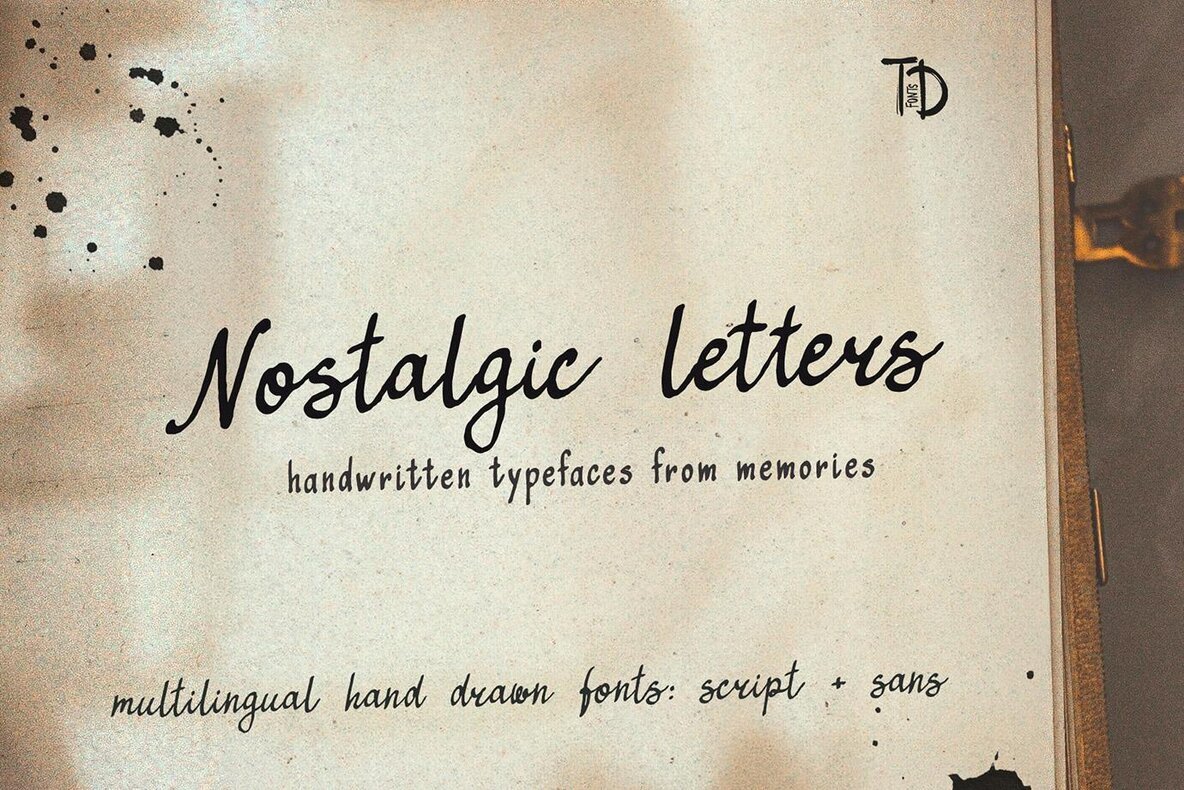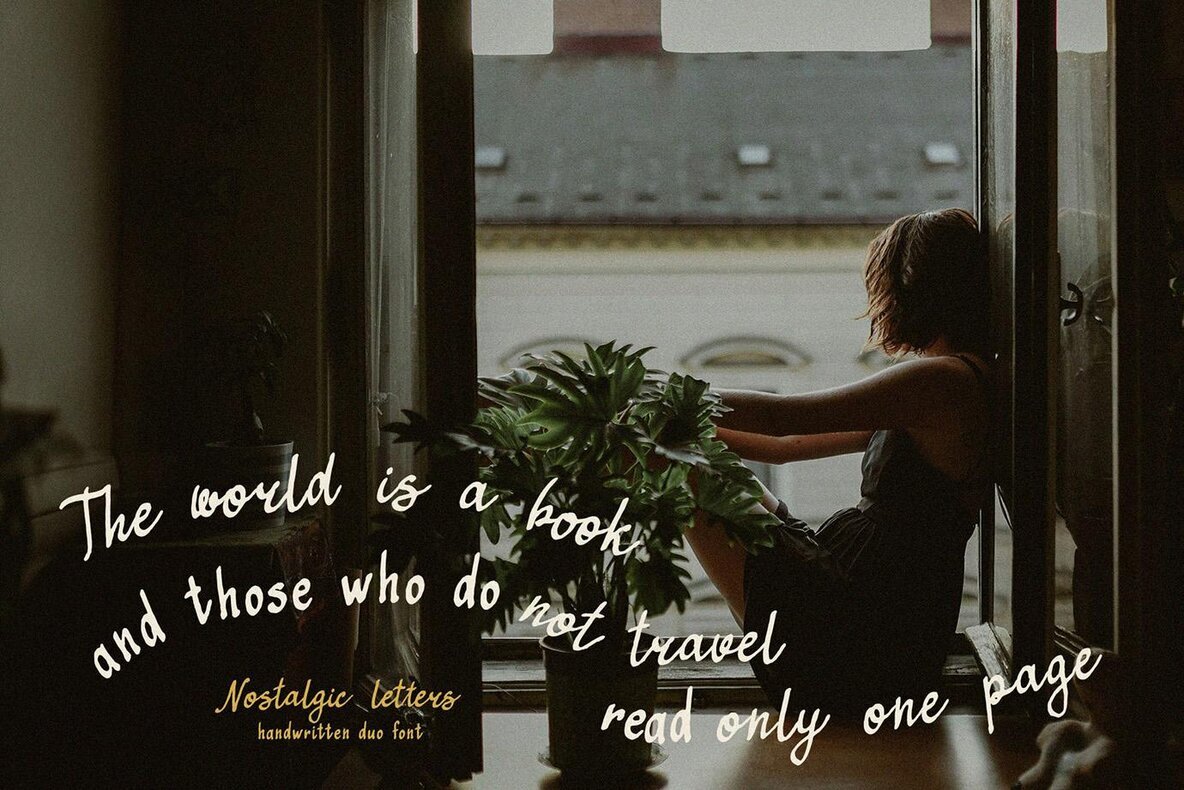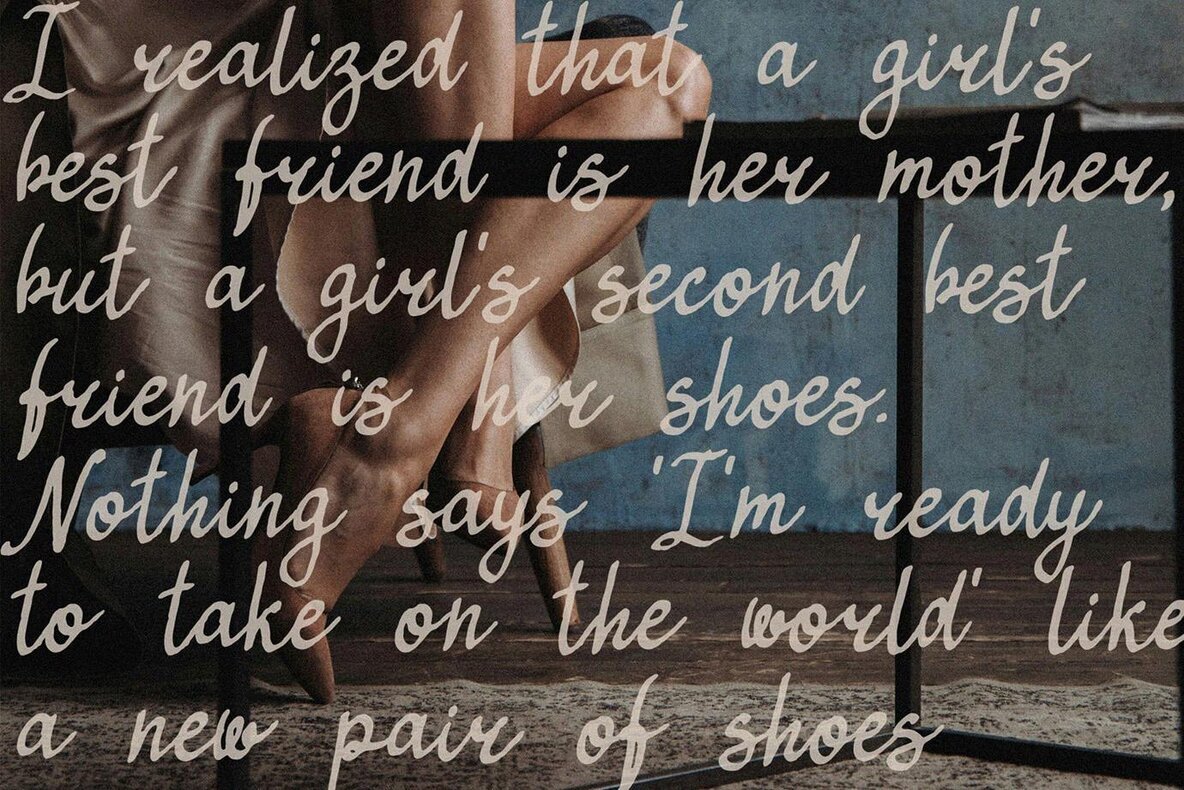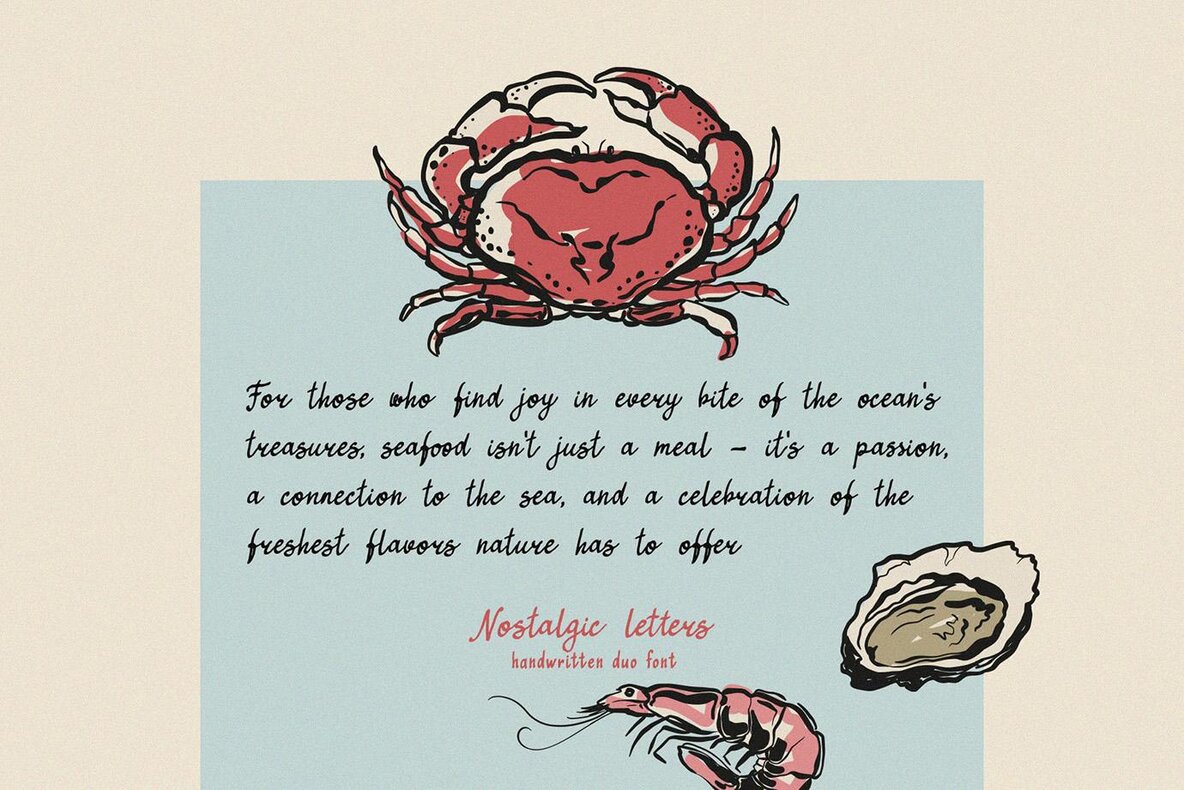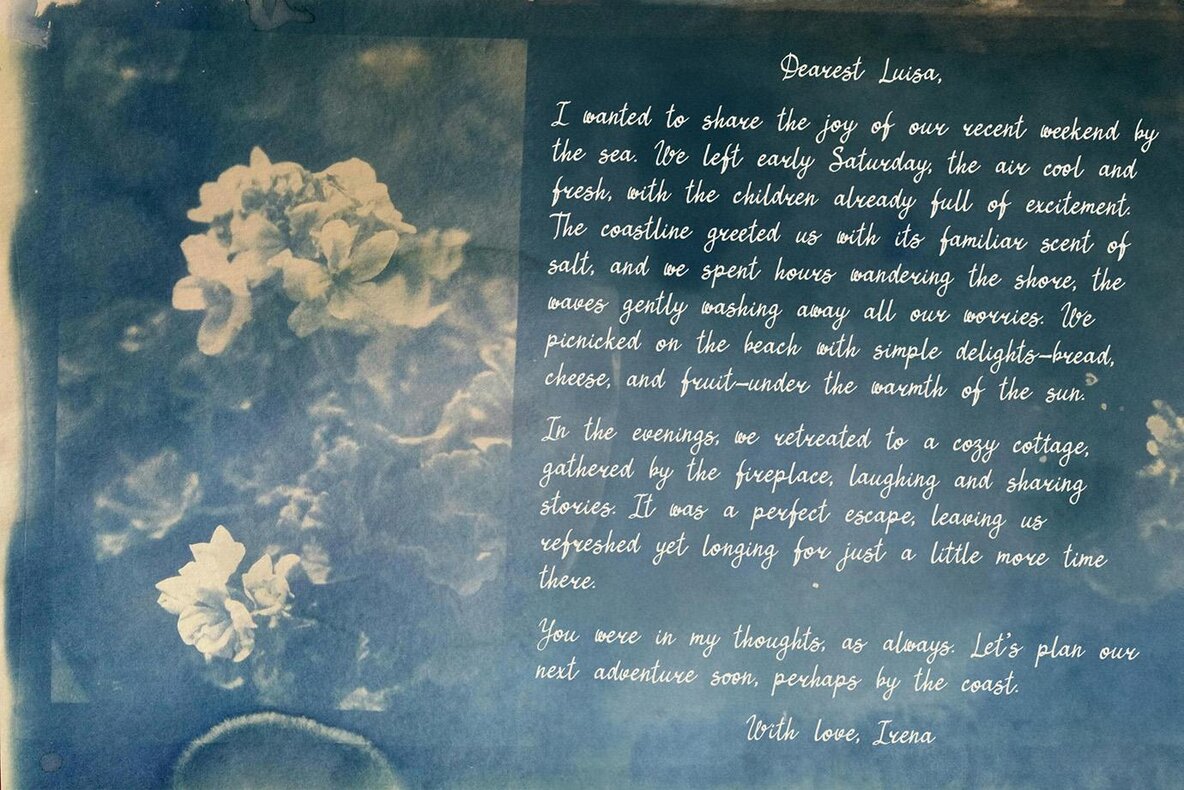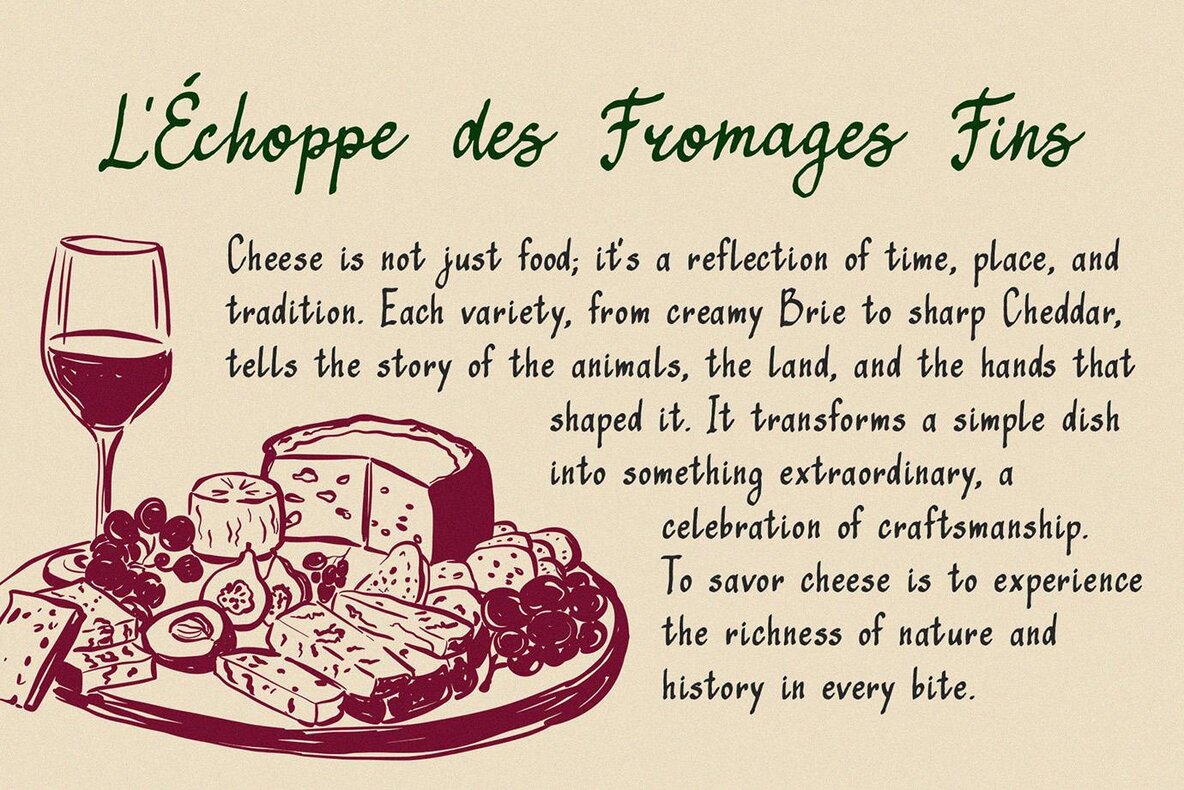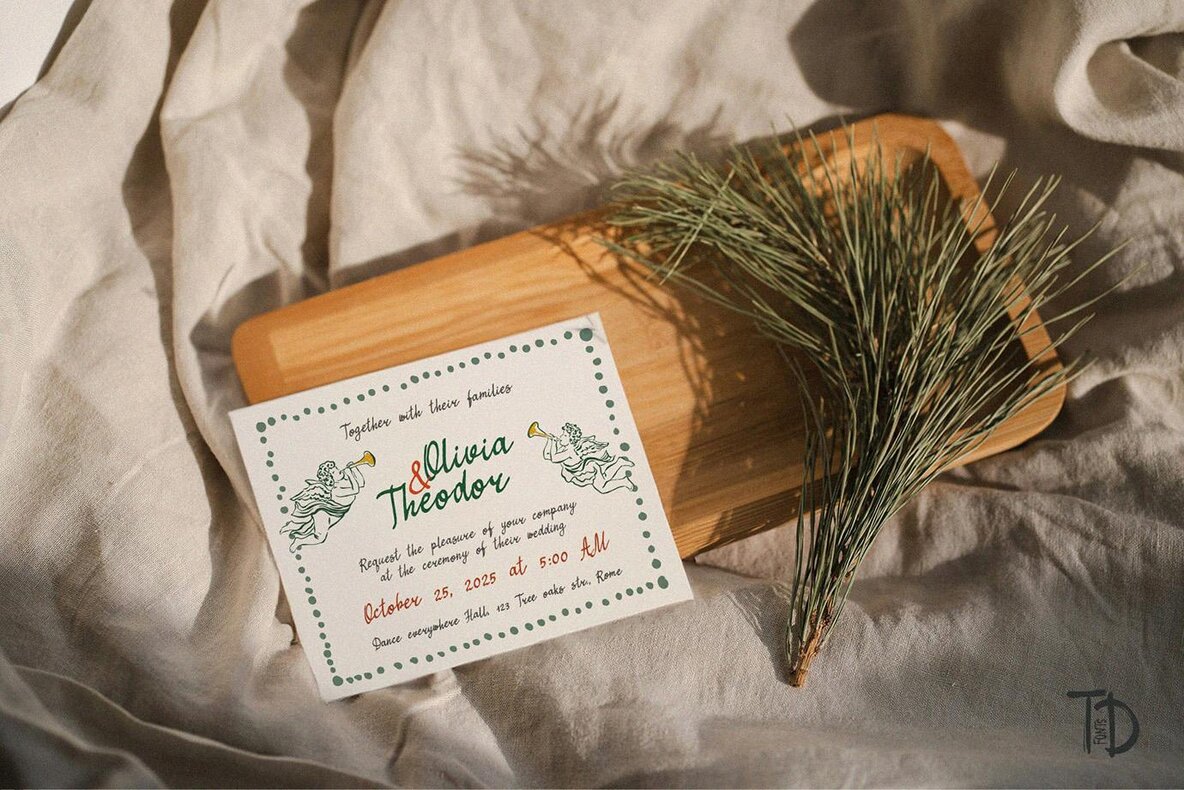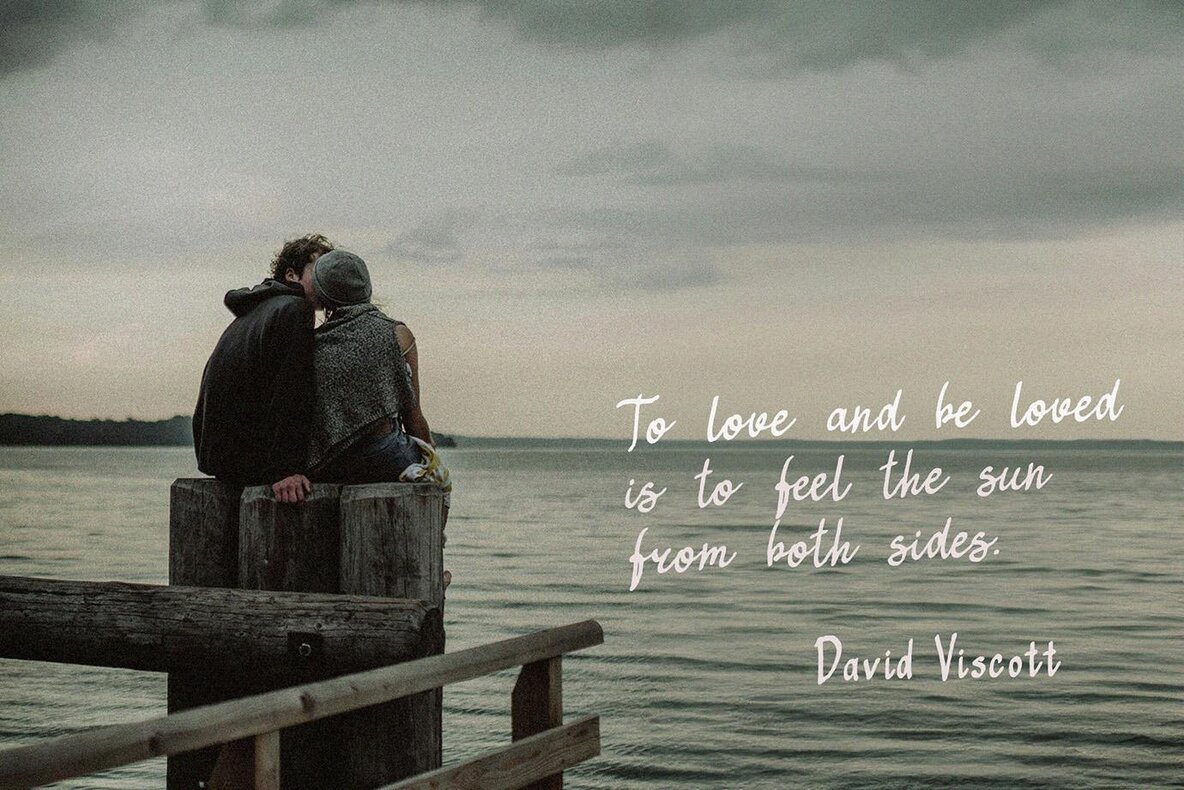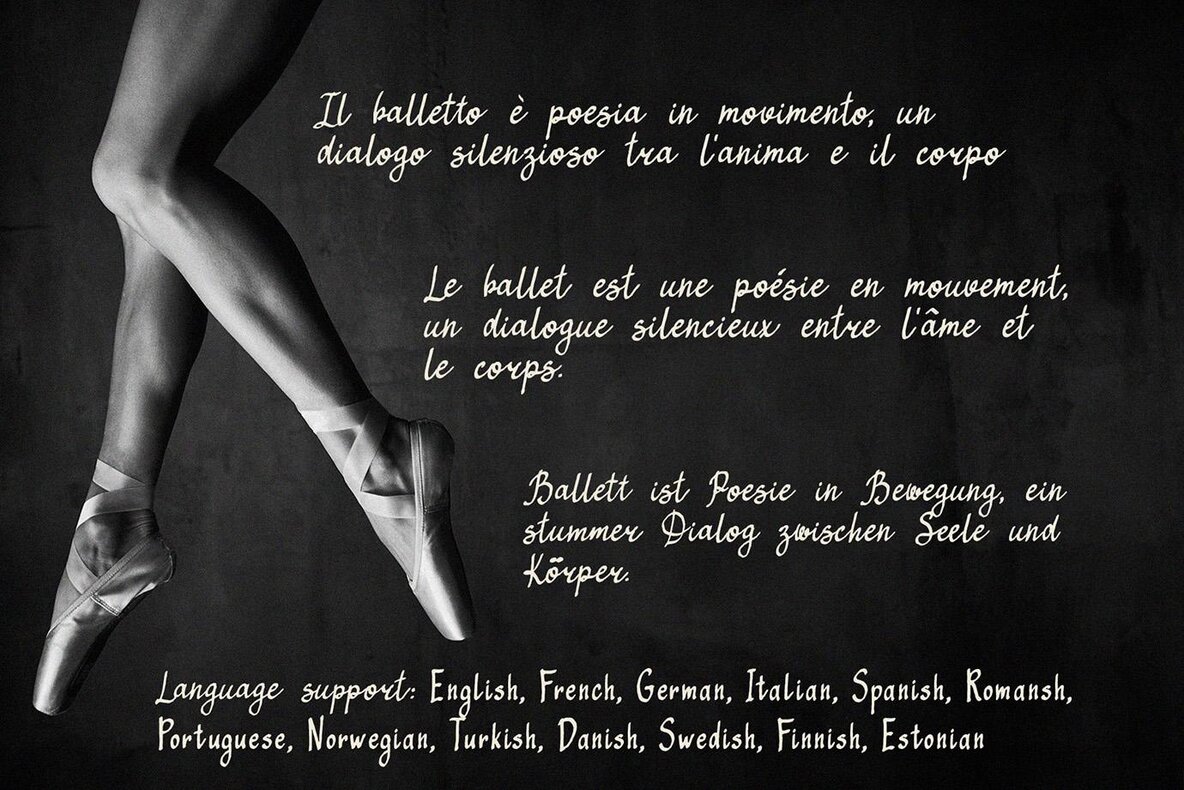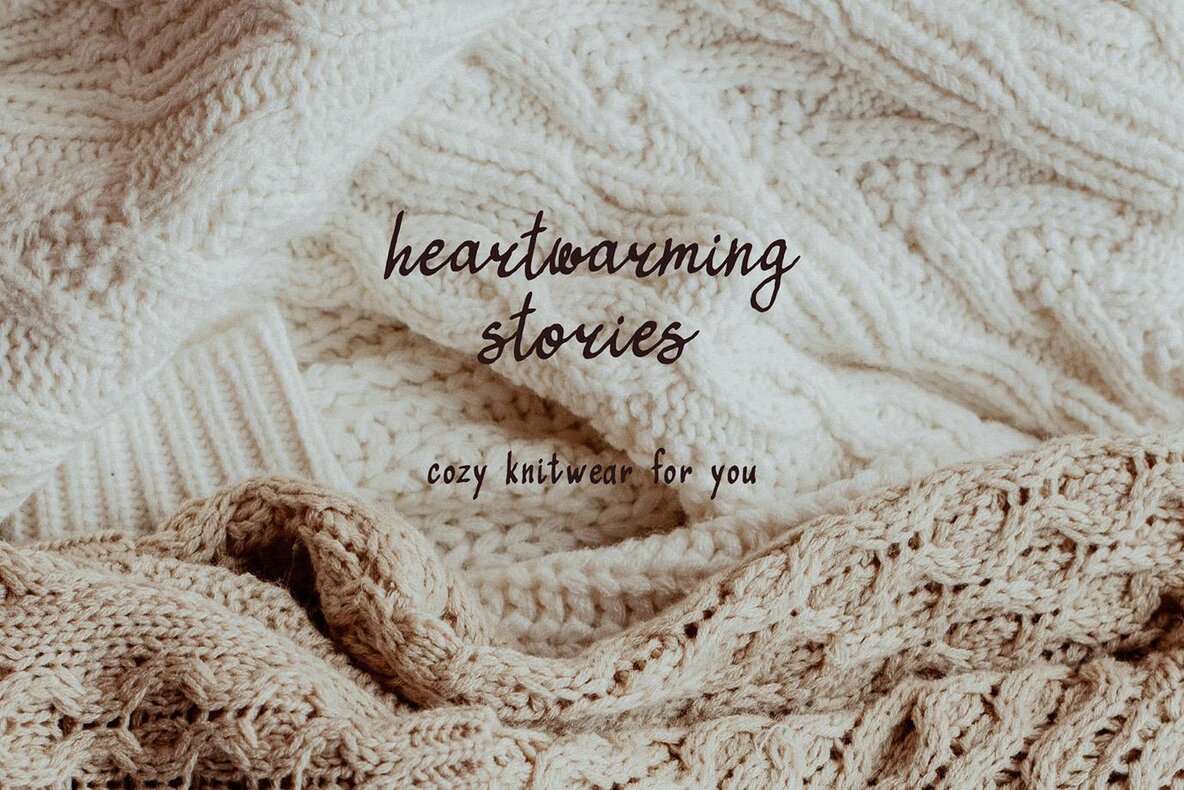
Nostalgic letters Font
Discover the charm of Nostalgic Letters, a delightful duo of handwritten fonts that captures the essence of retro aesthetics and organic hand-drawn style. Scribbled with a calligraphy pen, each letter exudes a subtle texture and vintage allure, perfect for adding personality to your designs. Embrace this whimsical font for creating enchanting visuals and magical typography. Featuring two cohesive styles — script and sans — Nostalgic Letters offers a beautiful harmony that elevates any creative project. With extensive language support, covering English, French, German, Italian, Spanish, and many more, these fonts become an indispensable tool for anyone passionate about handwritten typography. Please note, text and mockups are not included.Nostalgic Letters Font Collection
Versatile Design Applications